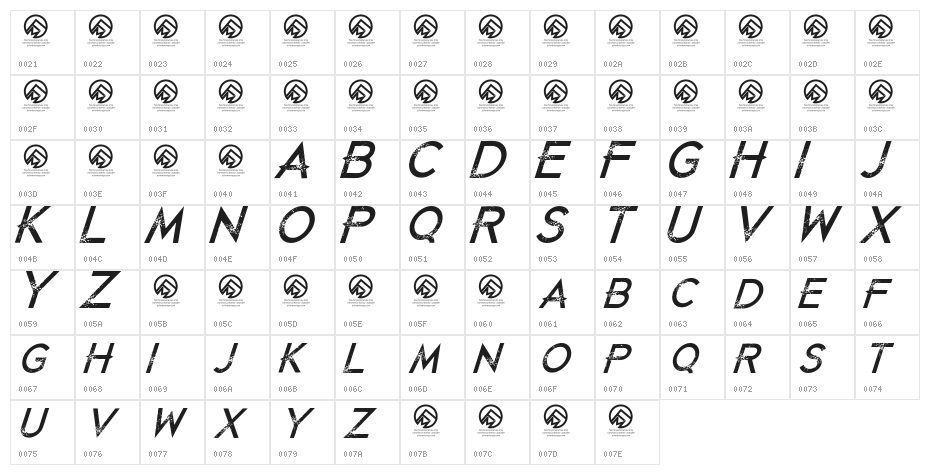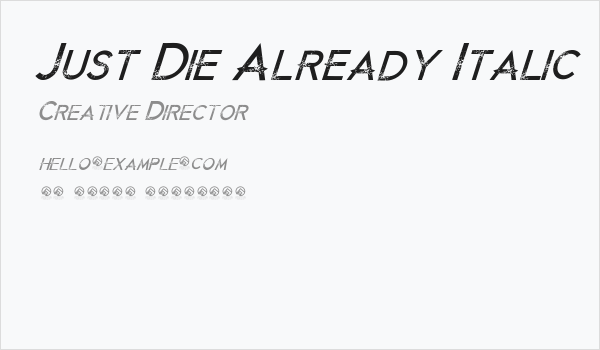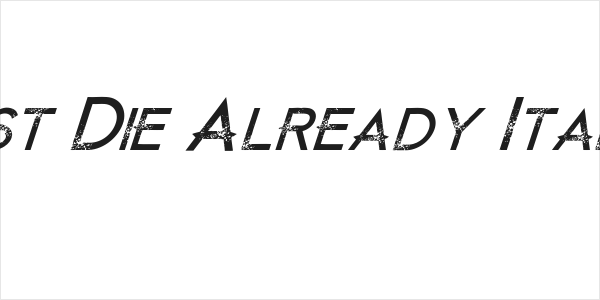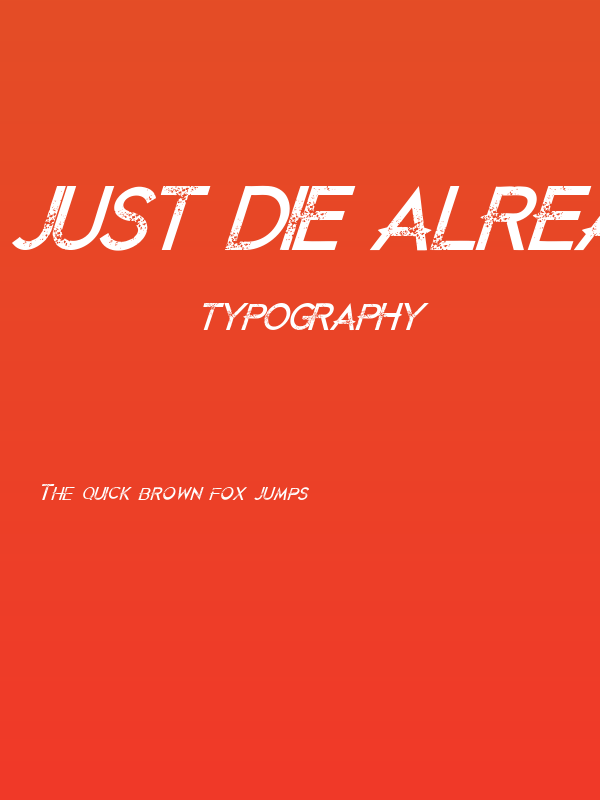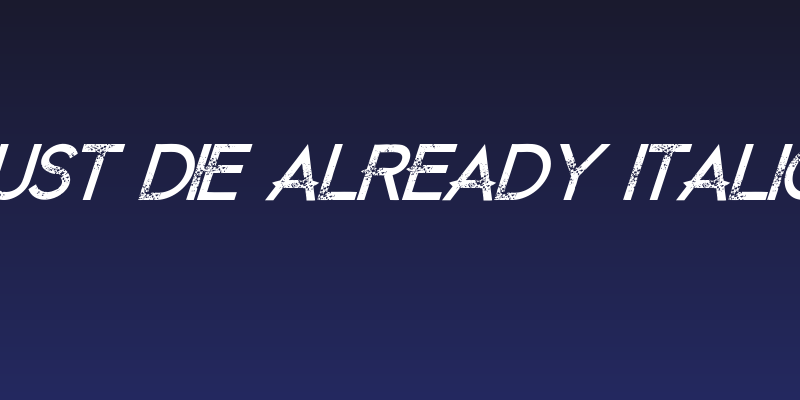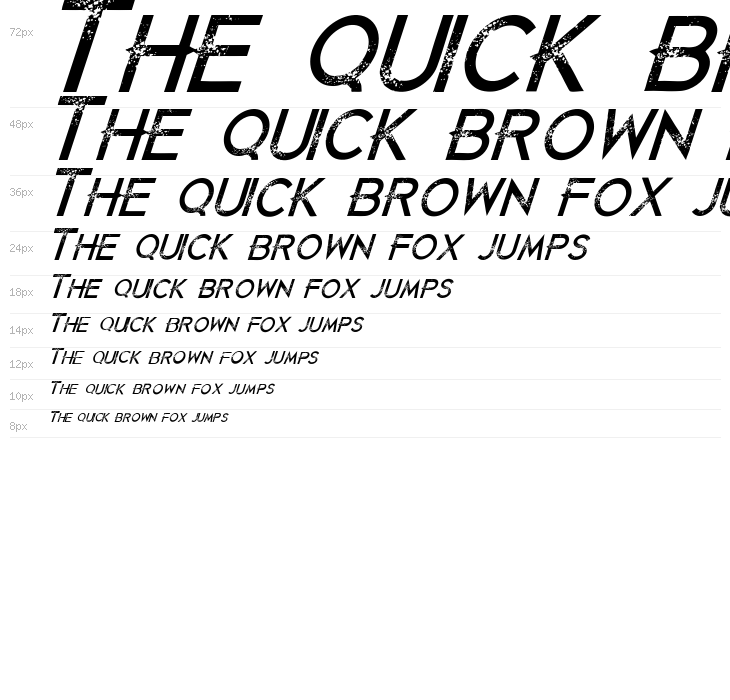
Just Die Already Italic Font
Just Die Already Italic Description
This font features a bold, italicized style with a distressed texture that gives it a rugged, edgy appearance. The uppercase letters are prominently slanted, enhancing the dynamic feel of the typeface. The characters are well-defined with a consistent stroke width, yet the distressed effect introduces a sense of unpredictability and rawness. This font is particularly striking in larger sizes, where the texture and details become more pronounced. The overall design is modern and attention-grabbing, making it suitable for projects that require a bold statement.
| Overall Style | Modern, Edgy |
| Proposed Projects | Ideal for posters, album covers, video game titles, and branding that requires a bold, edgy look. |